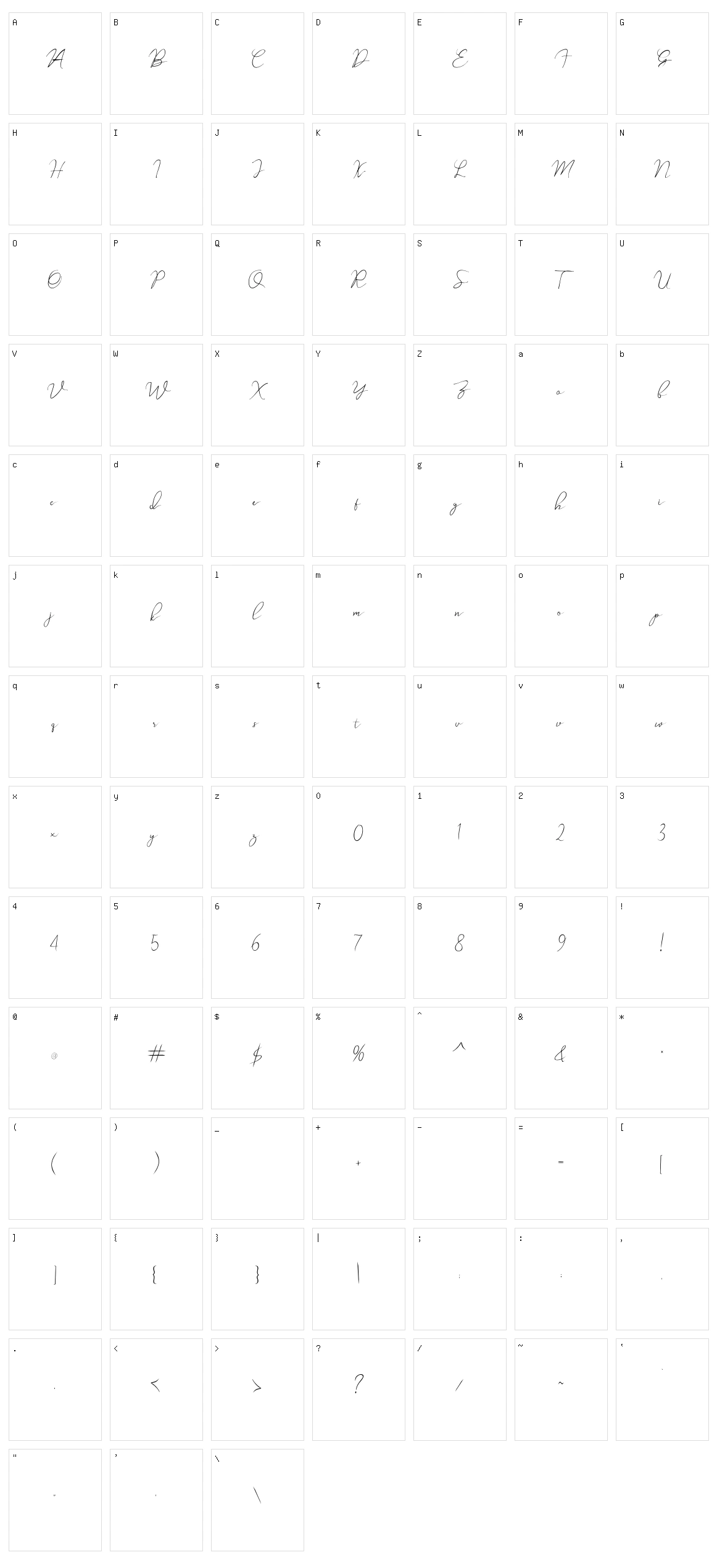
The free font Wollaston is carefully designed by Rezastudio, showcasing a thoughtful balance of creativity and usability and falls under the Script font style. When you download the ZIP file, it contains only 25.92 KB of font files, making it lightweight and quick to download. Please review the license details below to understand permitted usage and distribution rights. If license information is not available, we recommend using this font for personal projects only or contacting the author directly for commercial usage permissions.